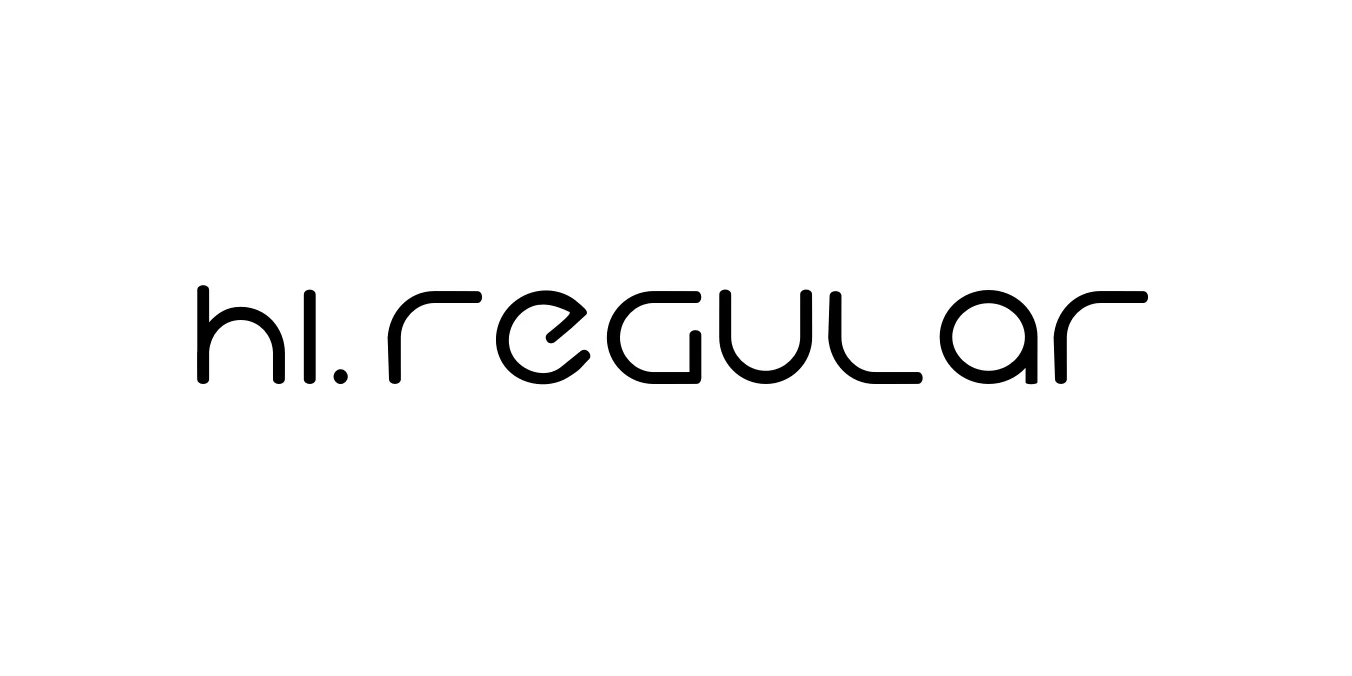
Hi. Regular
Designed by Yai Salinas
Hi. Regular is a contemporary and experimental typeface designed by the Argentinian graphic designer Yai Salinas. Known for its geometric precision and minimalist aesthetic, the font was crafted to offer a clean yet distinct personality for modern digital and print projects. Its structure is built on balanced proportions, making it highly legible while maintaining a unique artistic flair that distinguishes it from standard sans-serif families.
The typeface is particularly celebrated for its versatility in creative layouts, ranging from high-end fashion branding to innovative web interfaces. By focusing on bold strokes and simplified forms, Hi. Regular allows designers to create impactful visual hierarchies. Whether used in large display formats or as supportive text in editorial designs, it provides a sophisticated and professional look that aligns with current minimalist trends.
Hi. Regular Best Uses
Ideal for creating unique logos and corporate identities.
Perfect for magazine headlines and stylish layouts.
Great for eye-catching quotes and Instagram graphics.
Effective for hero headers and minimalist UI elements.